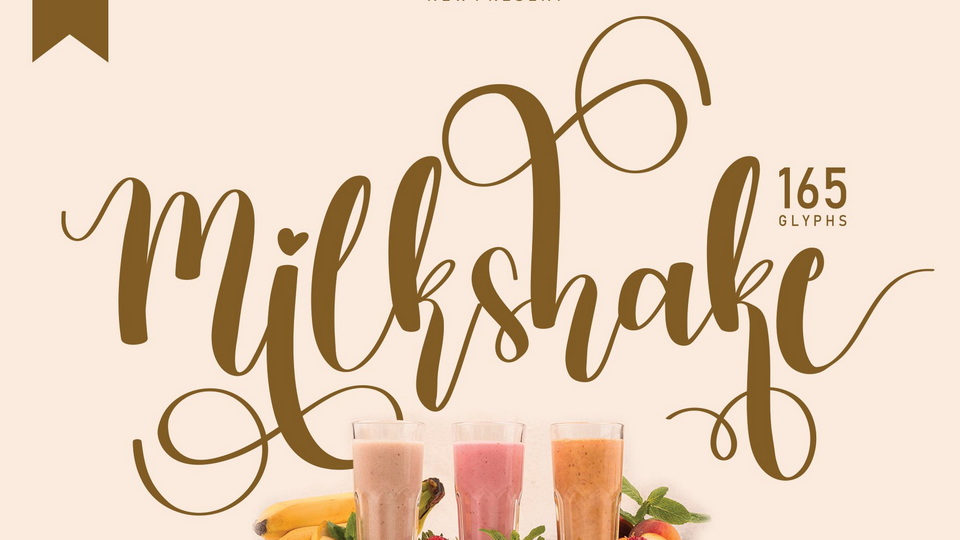
Download Milkshake font, a lovely handwritten typeface with a bouncy flow. Milkshake font is perfect for your creative ideas, both formal and informal.